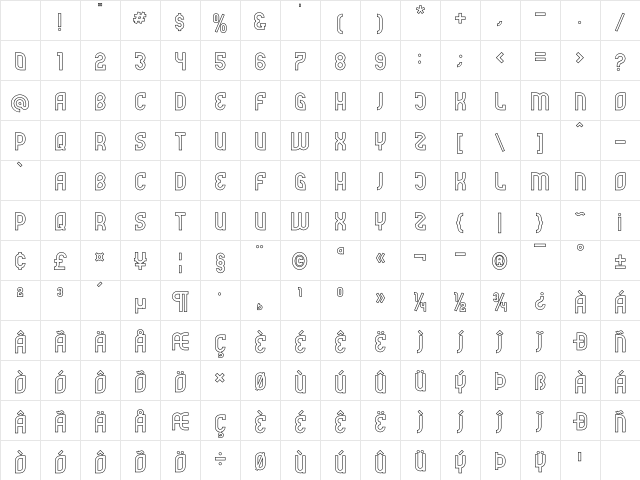
Complete Futrons Outline Demo Regular glyph index. Displaying only characters natively supported by Futrons Outline Demo Regular font.
Futrons Outline Demo is built around its visual character rather than neutral utility - its distinctive forms are designed to make an impression at display sizes.
Font Pairing: Pair with a clean neutral sans-serif for body copy to let Futrons Outline Demo's character lead without overwhelming the composition.
Pro Tip: Use Futrons Outline Demo exclusively at display sizes - it was designed to be seen, not read at length. Let a neutral companion handle body copy.